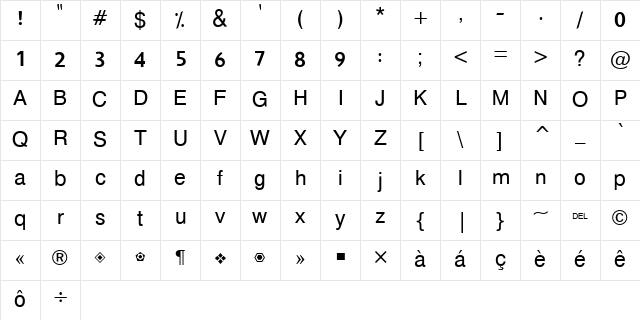
Hacen Beirut Poster Regular
Foundry: Muhammad Hacen
Designer: Muhammad Hacen
Design Context for Hacen Beirut Poster
Hacen Beirut Poster is a composed and adaptable typeface that performs quietly and consistently across a wide range of design contexts.